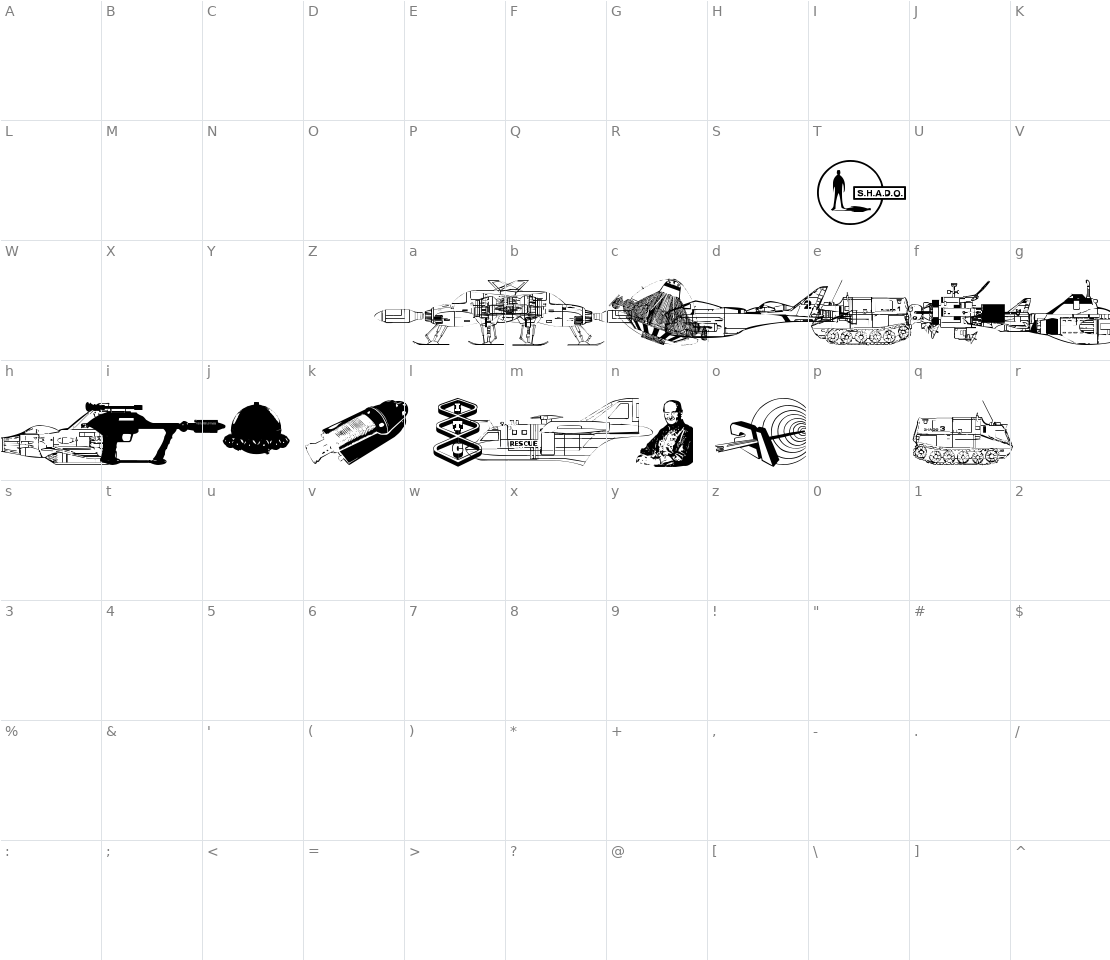
Anderson UFO
by Steve Ferrera
Anderson UFO is a dingbat font by Steve Ferrera featuring illustrated military aircraft, vehicles, and UFOs with a vintage war-era illustration style. Each glyph reads like a piece of mid-century technical artwork, making it useful for themed design projects, infographics, or decorative elements in military and aviation contexts.